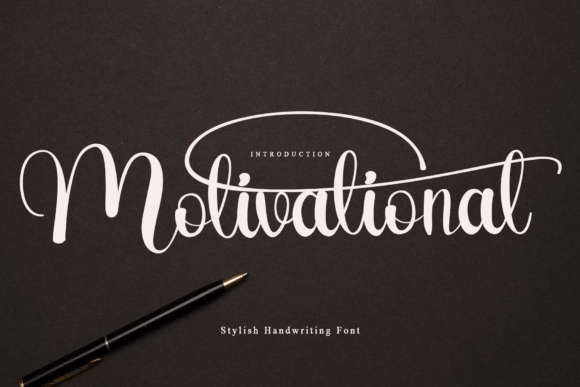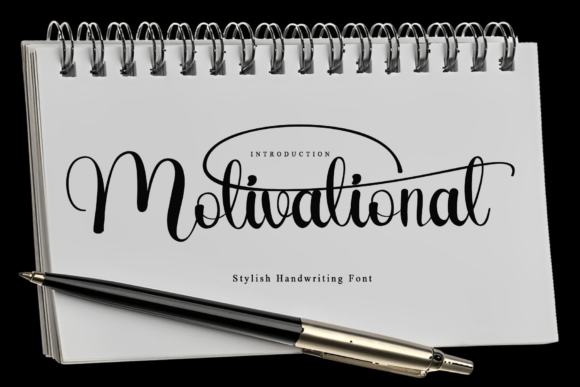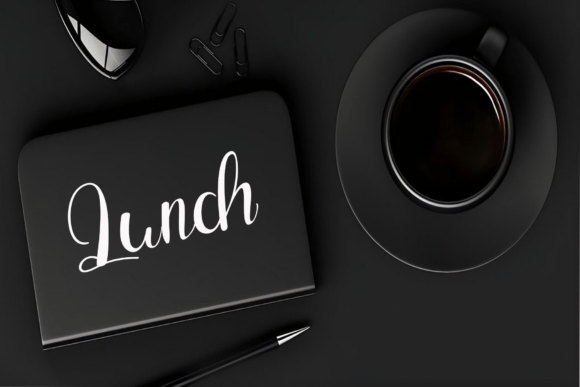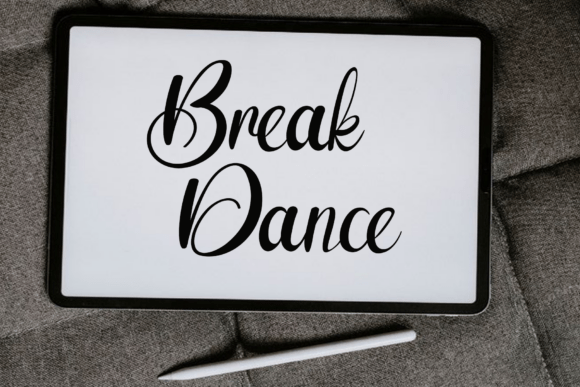
Motivational Font
About the Motivational Font
Welcome to the world of Motivational Font, a typeface that will inspire your next great project. Motivational is a trendy handwritten font with a contemporary atmosphere and impeccable form, inspired by timeless classic calligraphy. It will add elegance and class to any of your design projects.
Motivational excels in headlines, short taglines, and branding applications where its elegant, yet approachable style can shine. Its handcrafted feel works particularly well on invitations, logos, and packaging for products targeting a sophisticated yet modern audience. However, its informal nature makes it less suitable for body text or lengthy paragraphs, or UI elements requiring high readability.
Consider pairing Motivational with a clean sans-serif like Open Sans for a balanced contrast, or a classic serif such as Garamond for a more traditional feel. A geometric sans-serif like Futura would provide a modern counterpoint, enhancing the font’s contemporary edge. The overall personality is sophisticated and friendly, balancing elegance with a touch of casual charm.